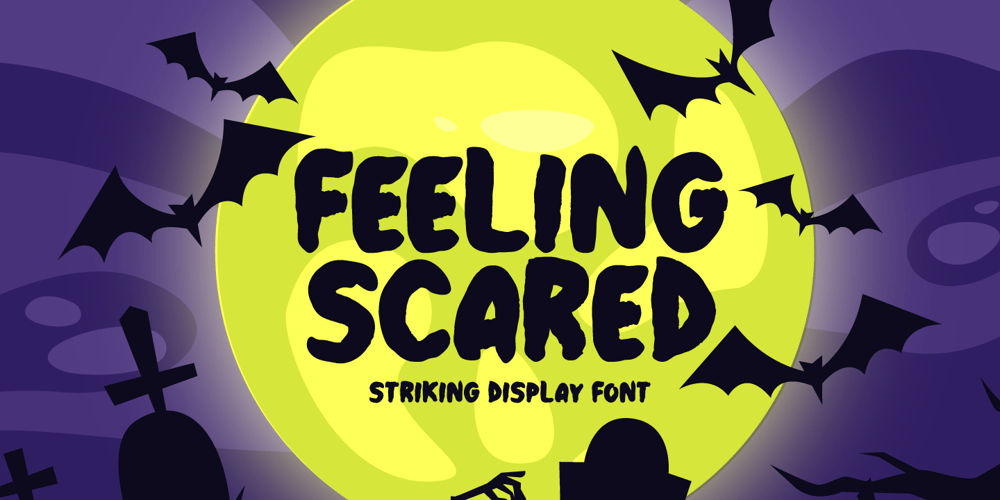
Feeling Scared Font Family was designed by Md Shohail Bhuian and published by Seemly Fonts. Feeling Scared contains 1 styles and family package options. Feeling Scared is a casual and creepy-looking display font. It is perfectly suitable for any Halloween-related project or crafty idea! The only limit is your imagination.